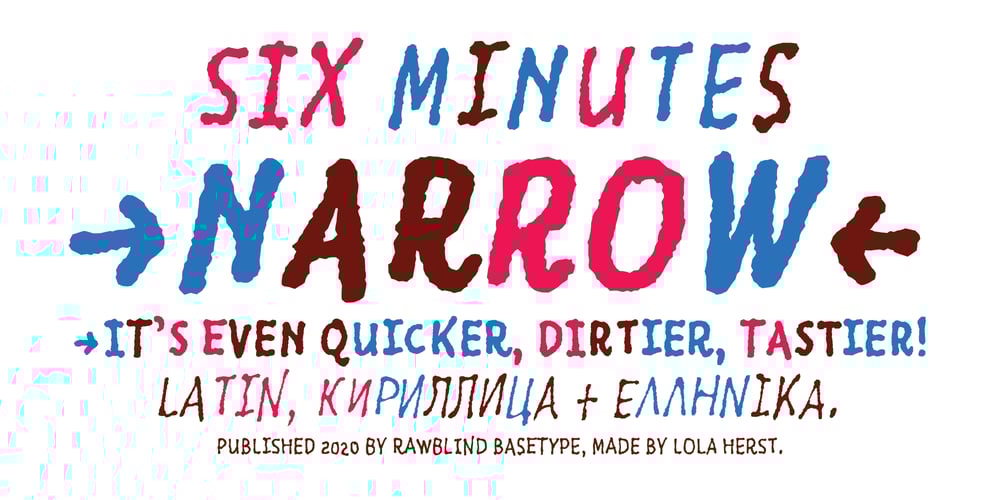
Six Minutes Narrow Font Family was designed by Lola Herst and published by Rawblind Basetype. Six Minutes Narrow contains 6 styles and family package options. SixMinutesNarrow is – as the name suggests – a narrow version of SixMinutes. Just as quick, dirty and tasty as SixMinutes, but it will fit more text in less space.